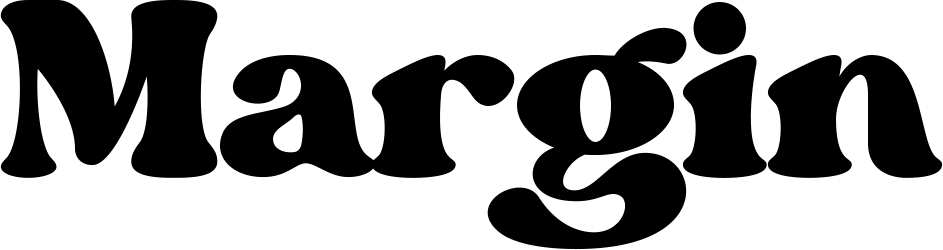
Margin Font
Margin is a groovy font with bold, floppy, distorted characters. It consists of both upper and lowercase letters with no numerals or punctuation marks included. Some of the areas where you can count on this vintage T-shirt font to give you a superb outcome include cartoons, game graphics, comic books, greeting card designs, and print T-shirts.